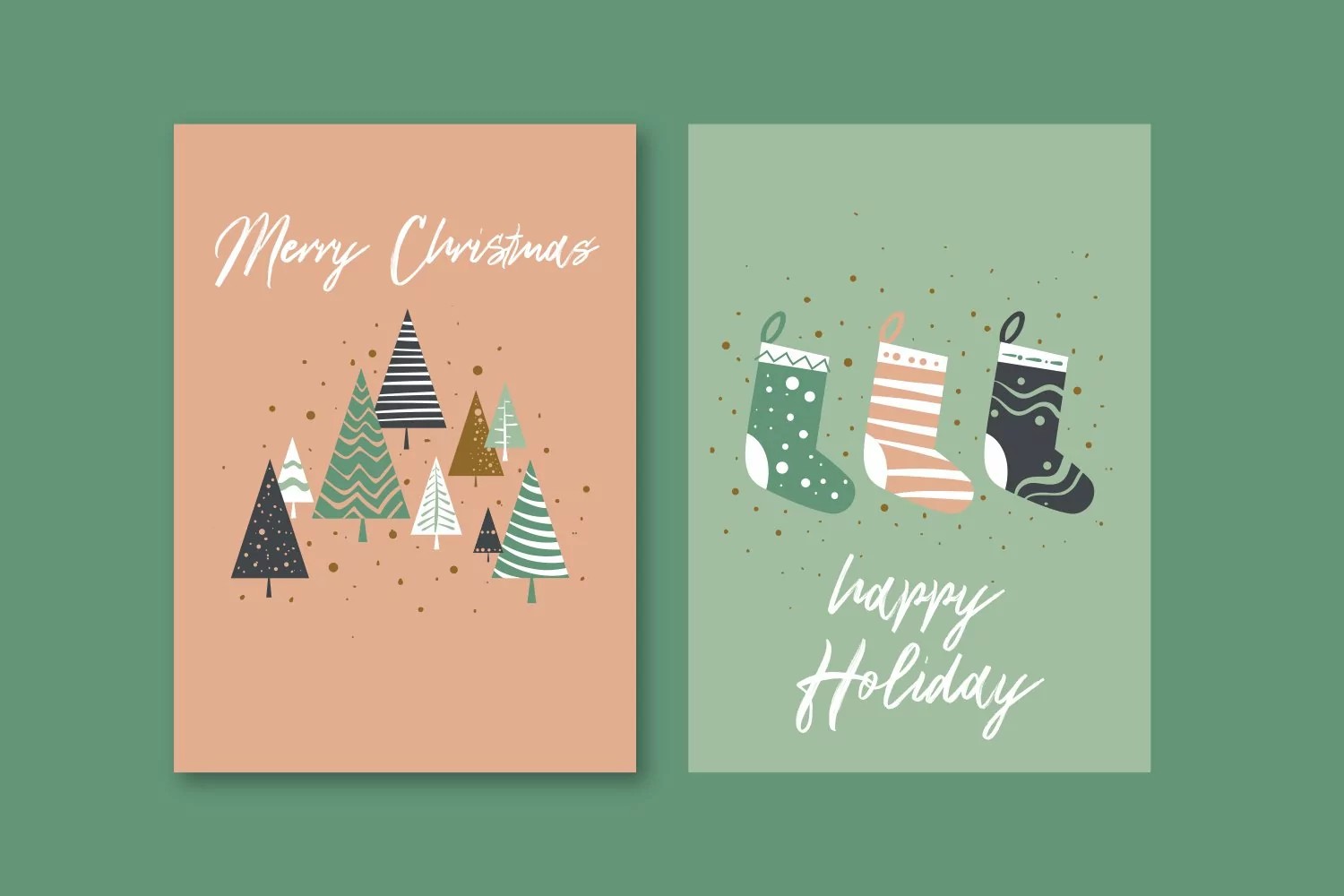
Crotches Rough Stroke Brush Font
Give your designs an authentic handcrafted feel. Crotches Rough Stroke Brush Font is perfectly suited to logo, stationery, branding, typography quotes, magazine or book cover, website header, clothing, branding, packaging design, restaurant and more.